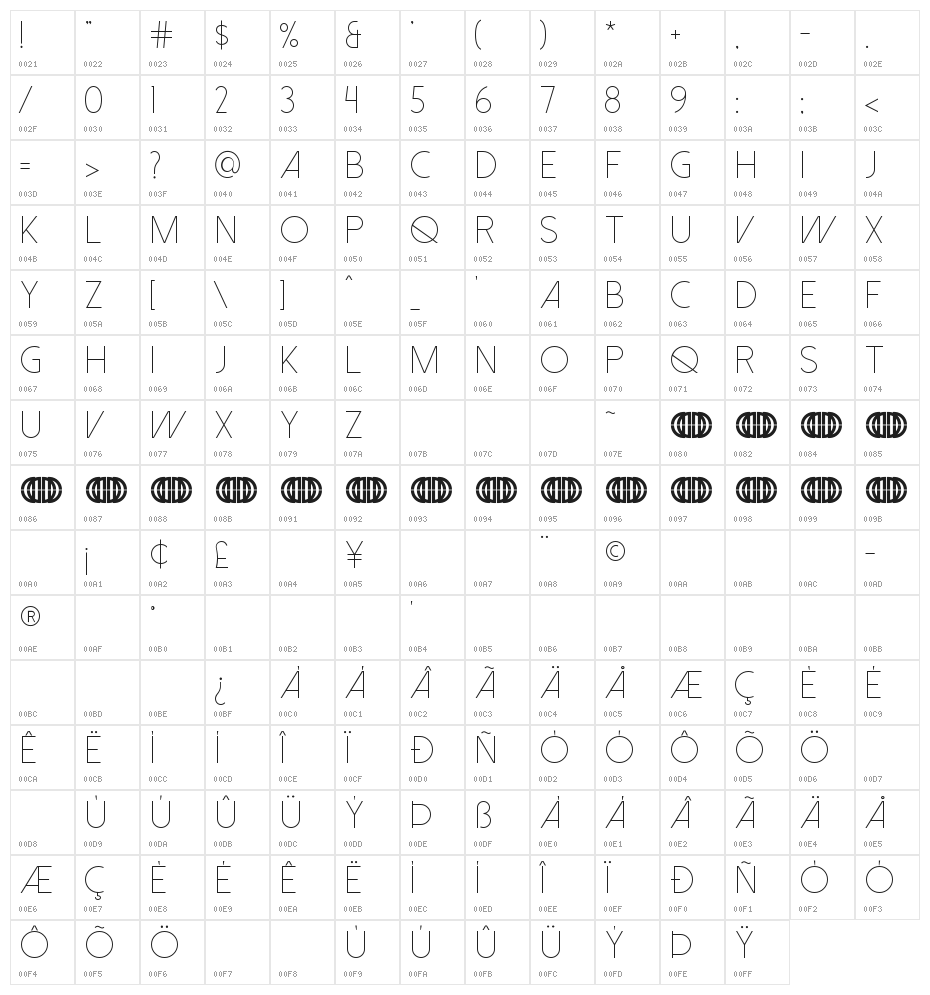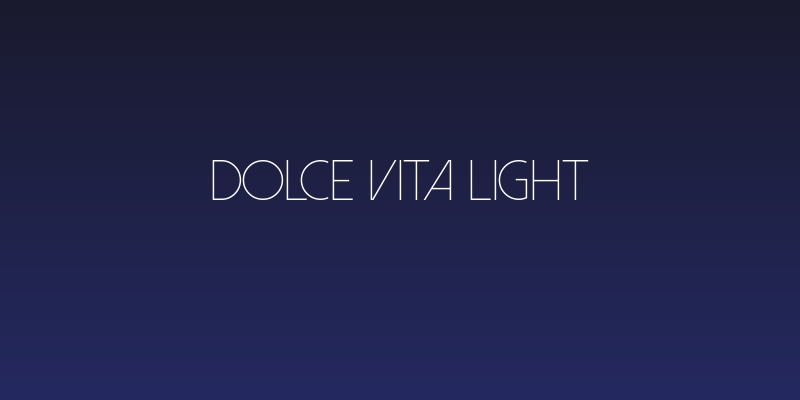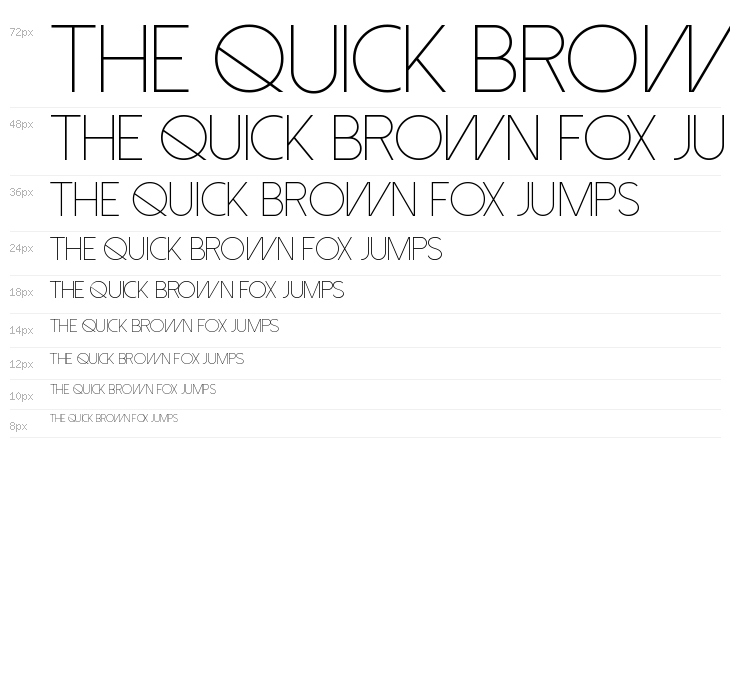
Dolce Vita Light Font
This font features a sleek, modern design with clean, geometric lines and a minimalist aesthetic. The characters are tall and slender, with a consistent stroke width that gives it a uniform appearance. The uppercase and lowercase letters maintain a harmonious balance, while the numerals and special characters are crafted to match the overall style. The font's elegance and simplicity make it versatile for various design applications, providing a contemporary feel that is both sophisticated and approachable.
| Proposed Projects | Ideal for branding, editorial design, fashion magazines, and luxury product packaging. |